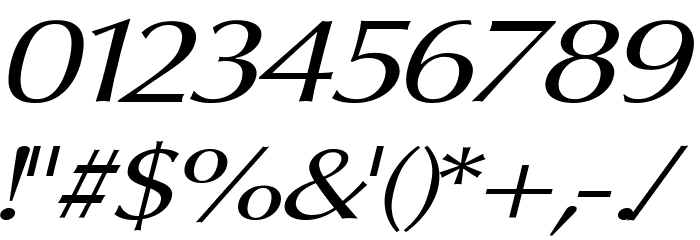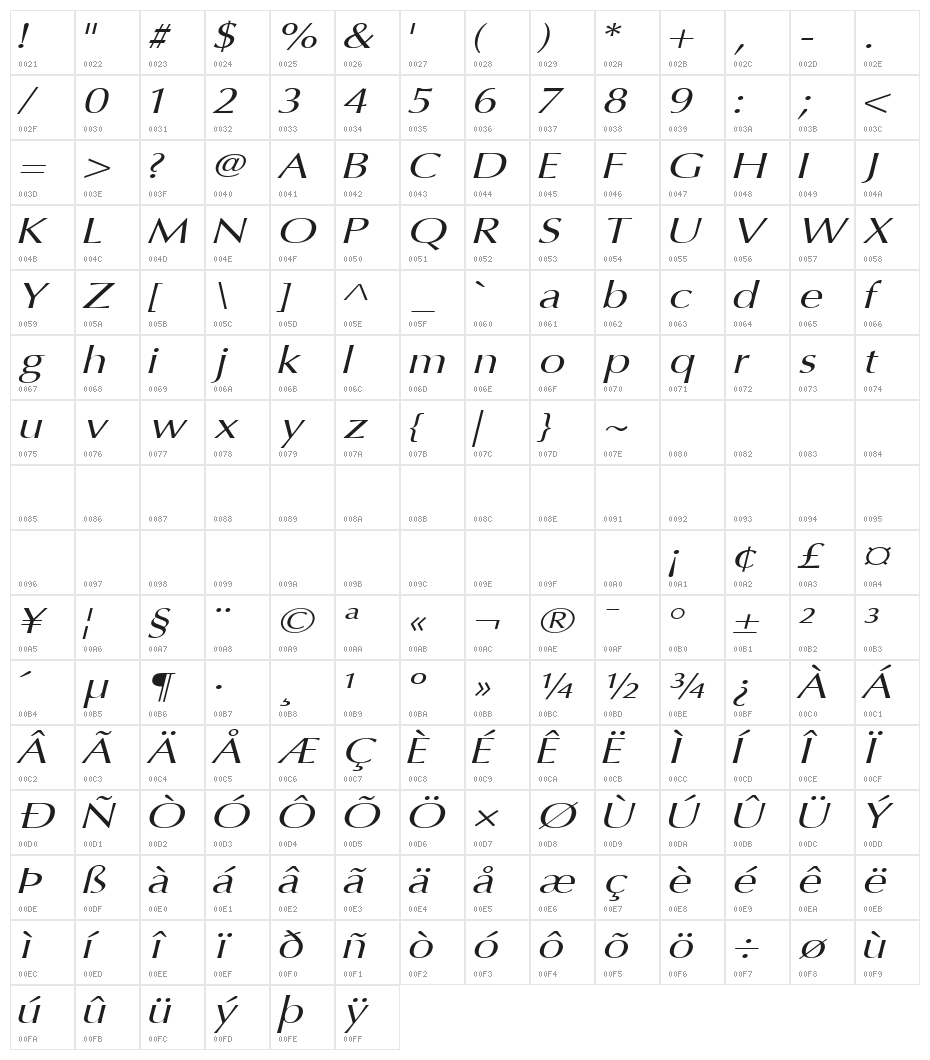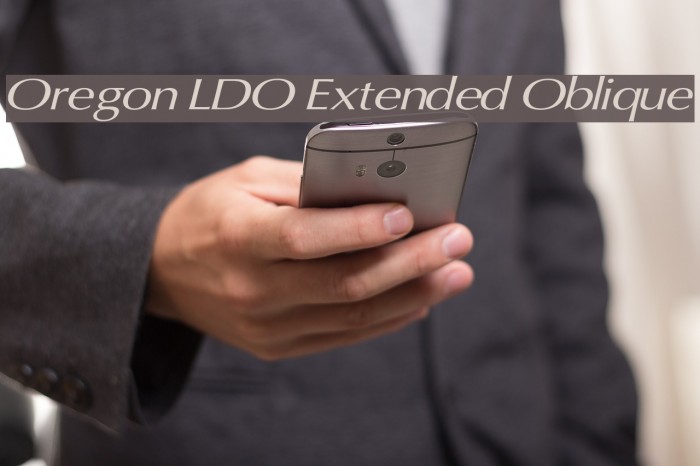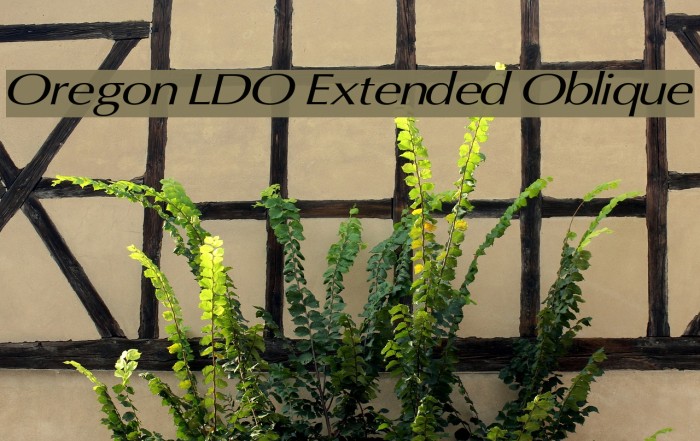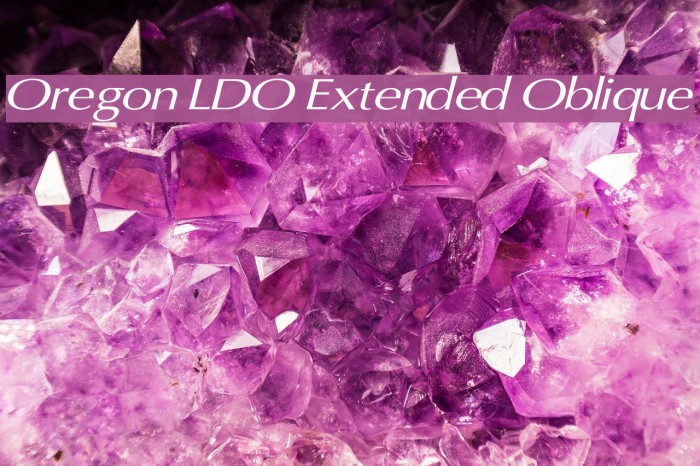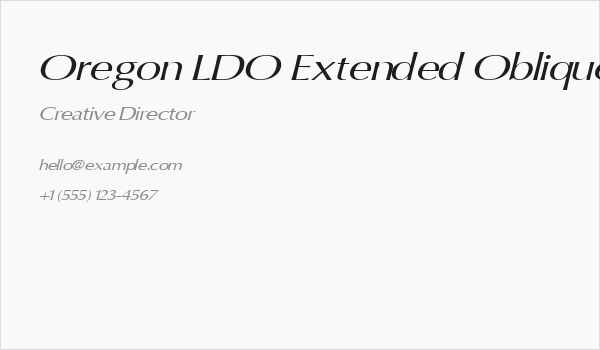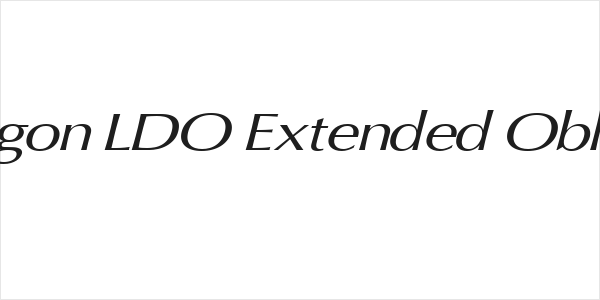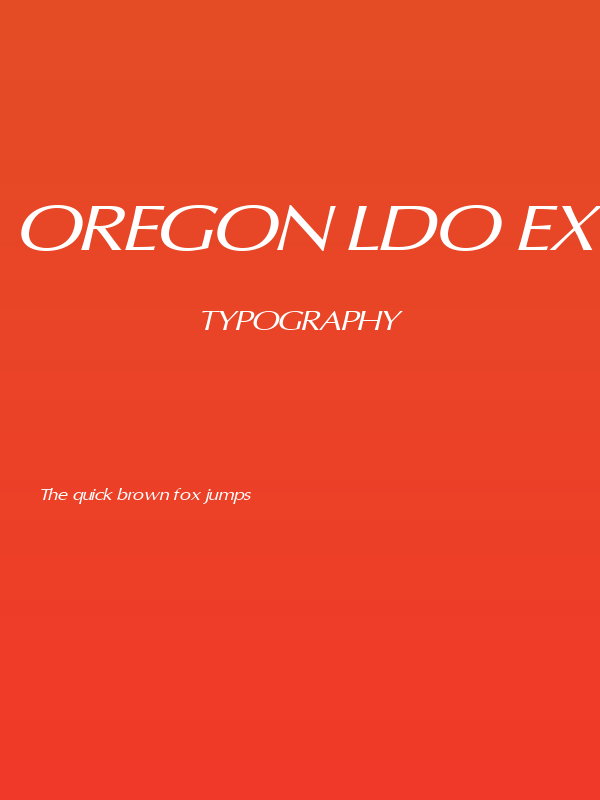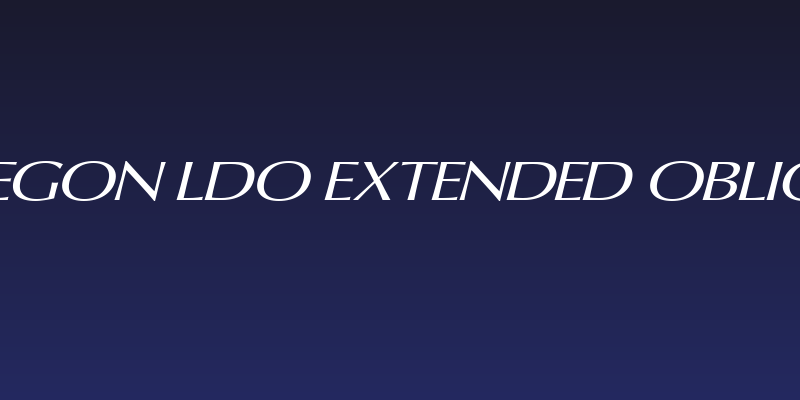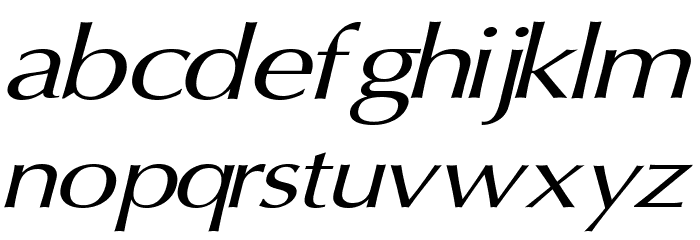
Oregon LDO Extended Oblique Font
Oregon LDO Extended Oblique Description
This font features an elegant and sophisticated design with a distinct oblique style. The characters are elongated and slightly slanted, giving a sense of motion and dynamism. The uppercase letters are bold and commanding, while the lowercase letters maintain a refined and graceful appearance. The numerals are clear and well-proportioned, ensuring readability. Special characters are included, adding versatility to the font. The overall aesthetic is modern and stylish, making it suitable for a variety of design applications.
| Use Case | Headlines, Logos, Editorial design |
| Proposed Projects | Ideal for branding, editorial design, fashion magazines, and luxury product packaging. |